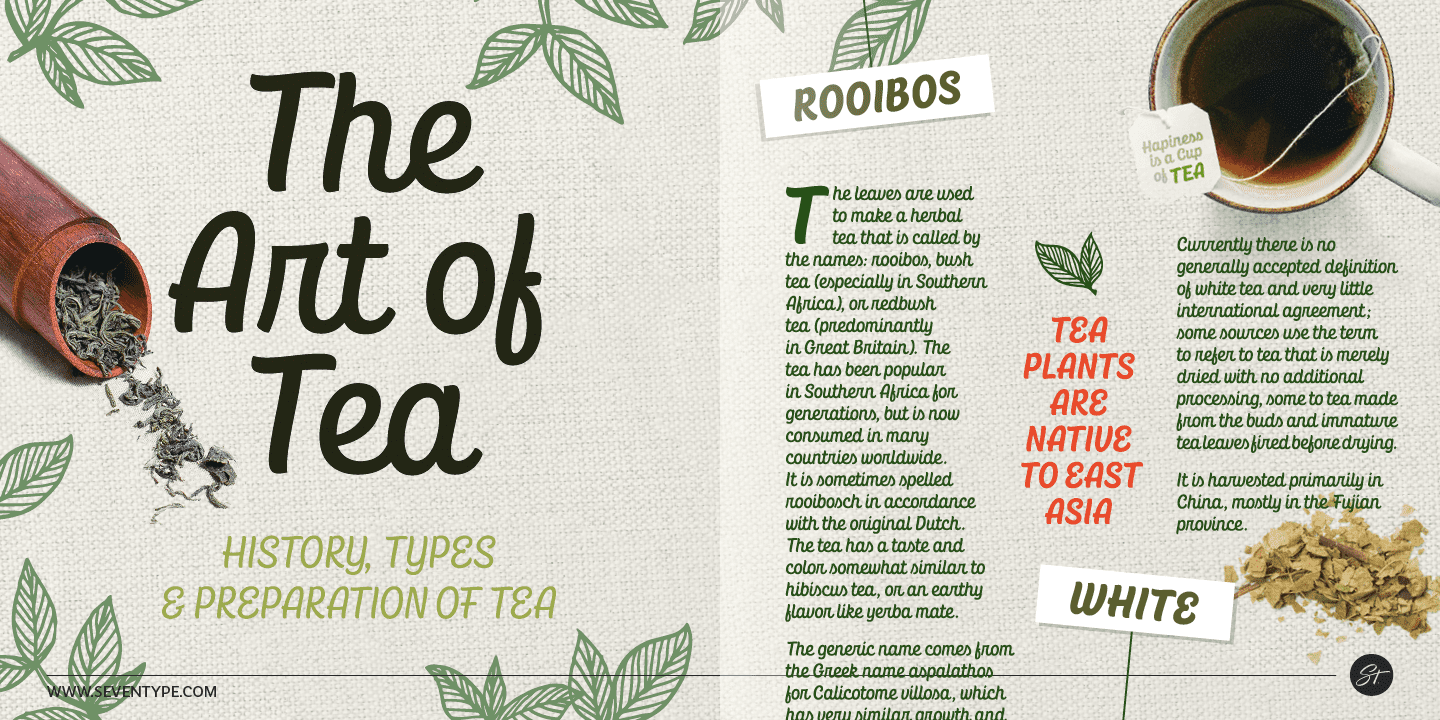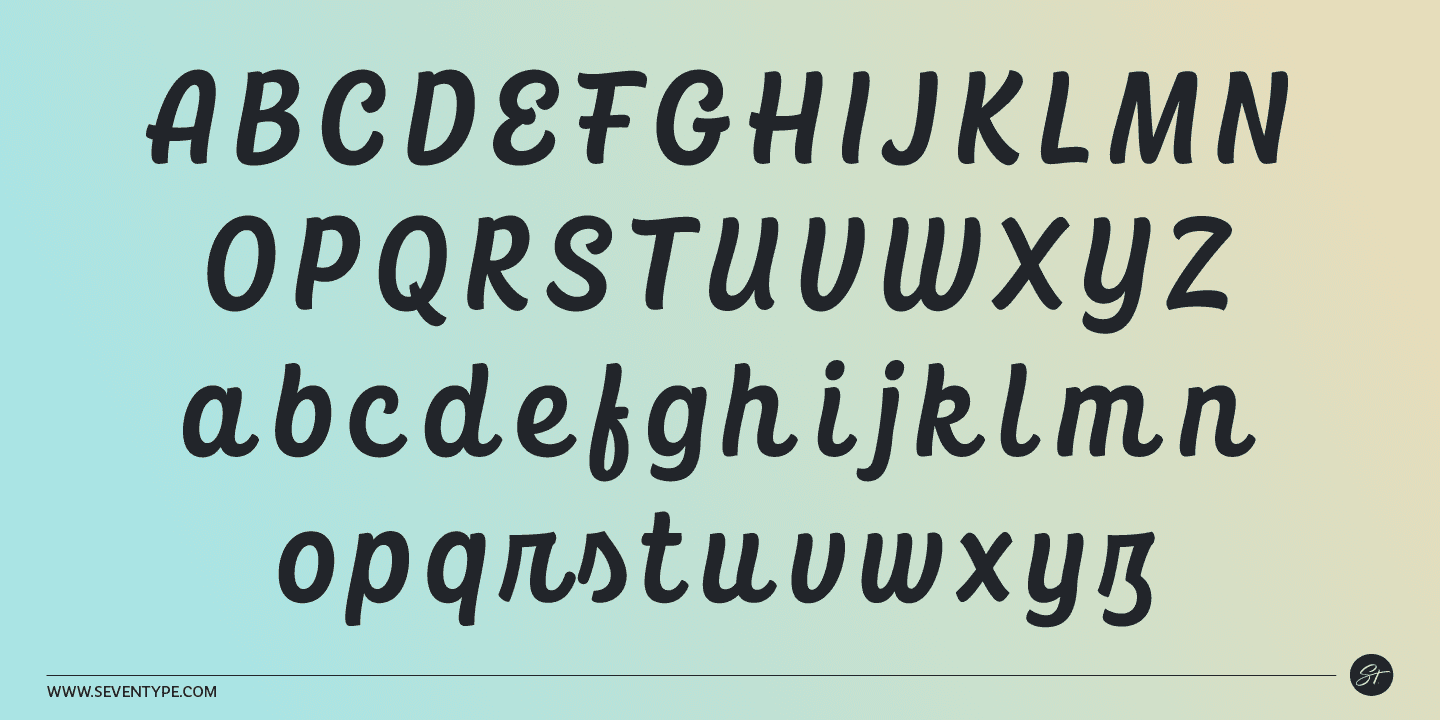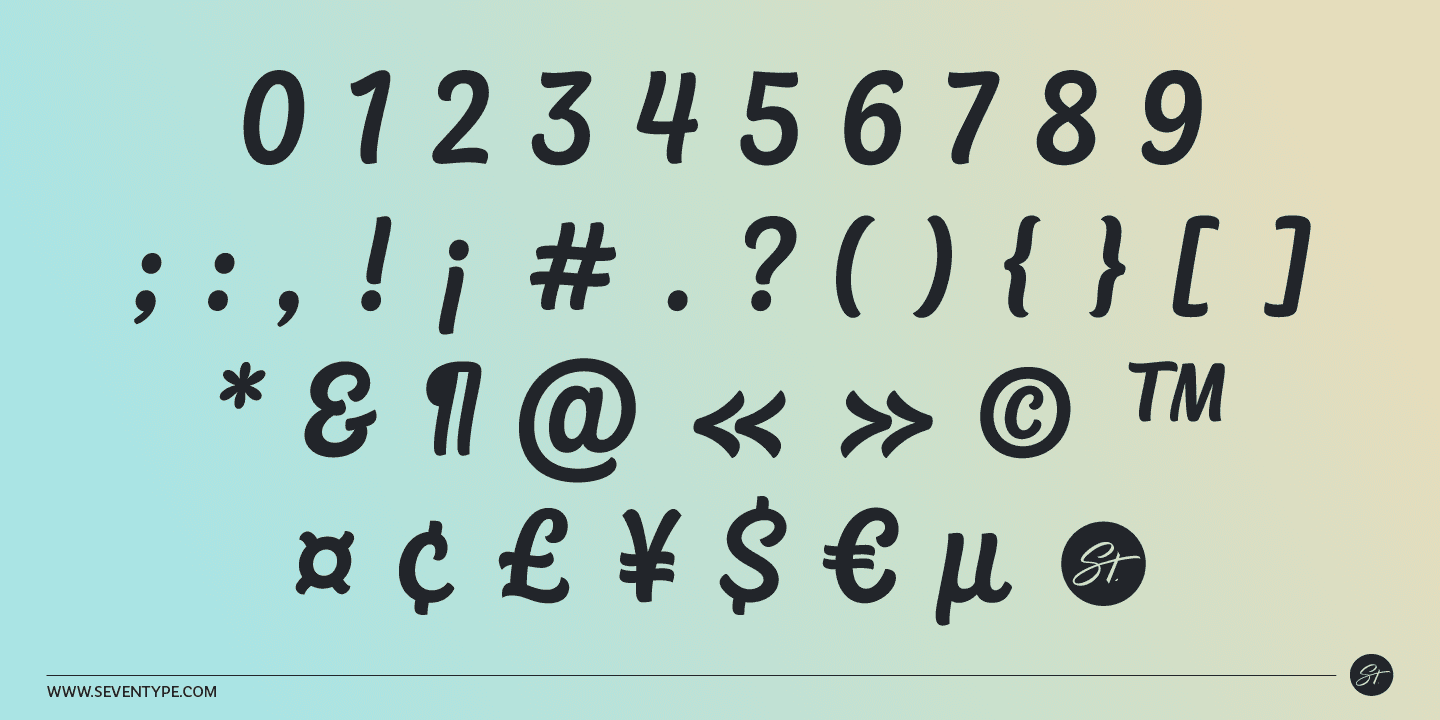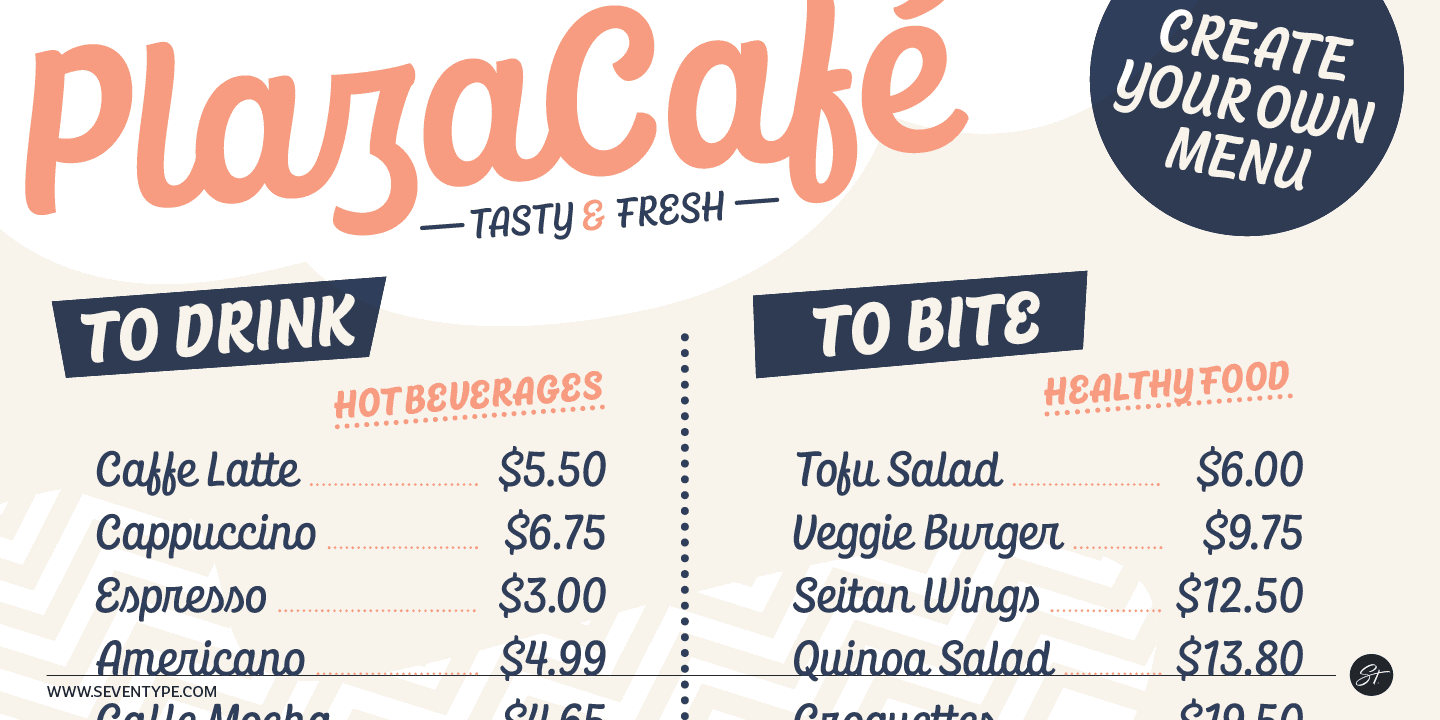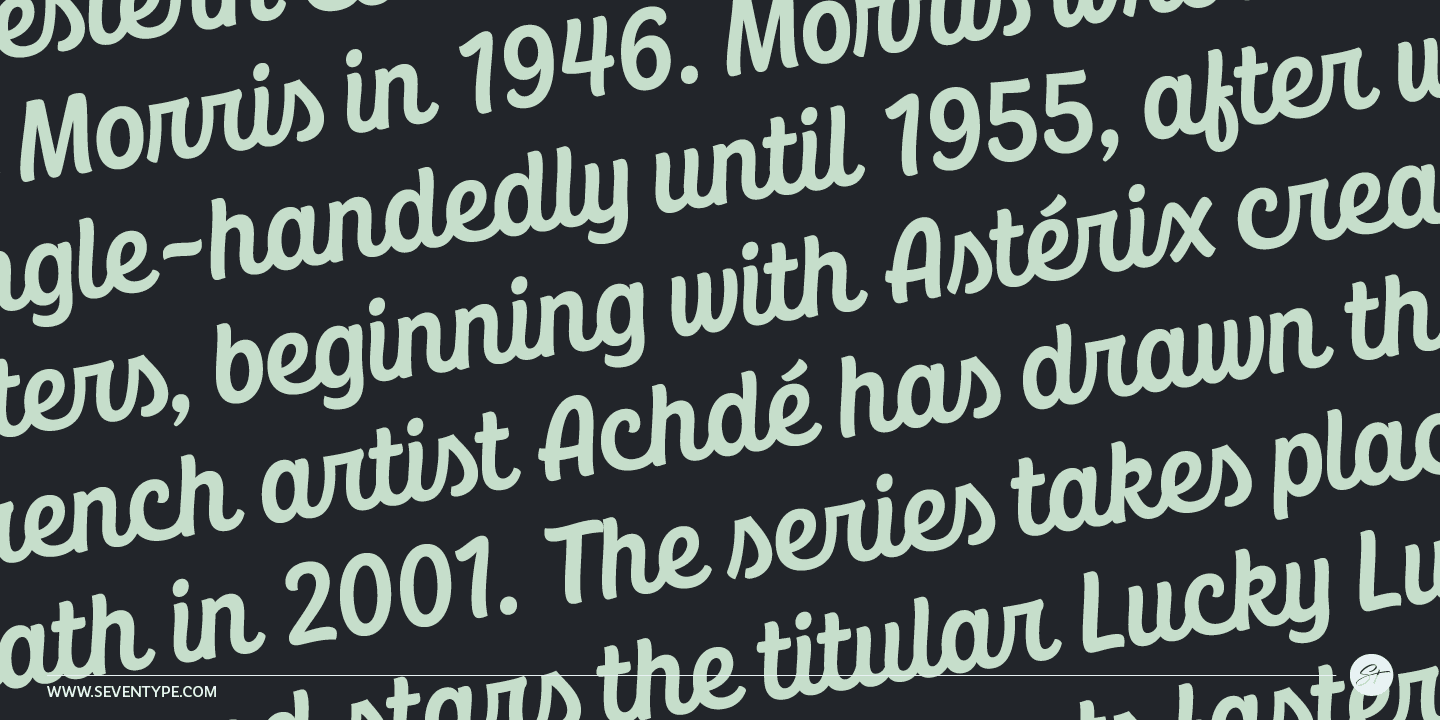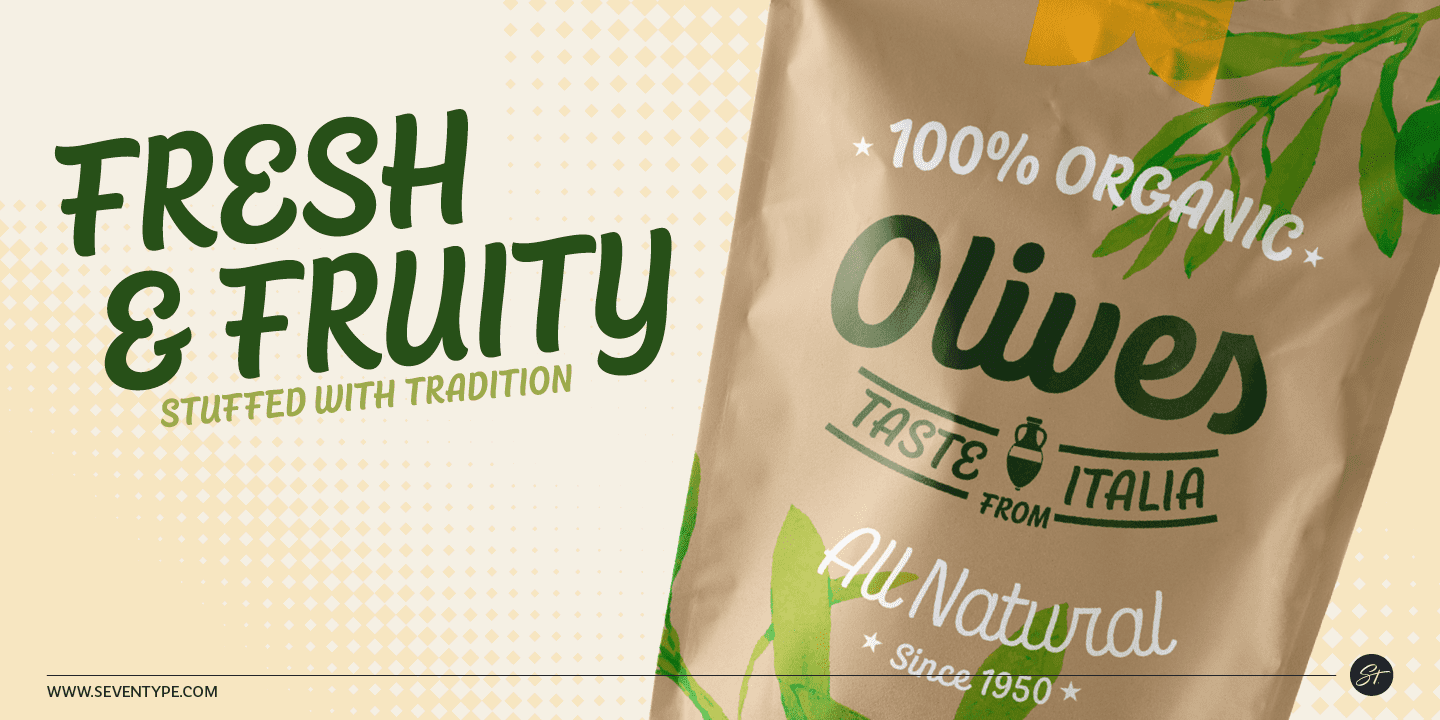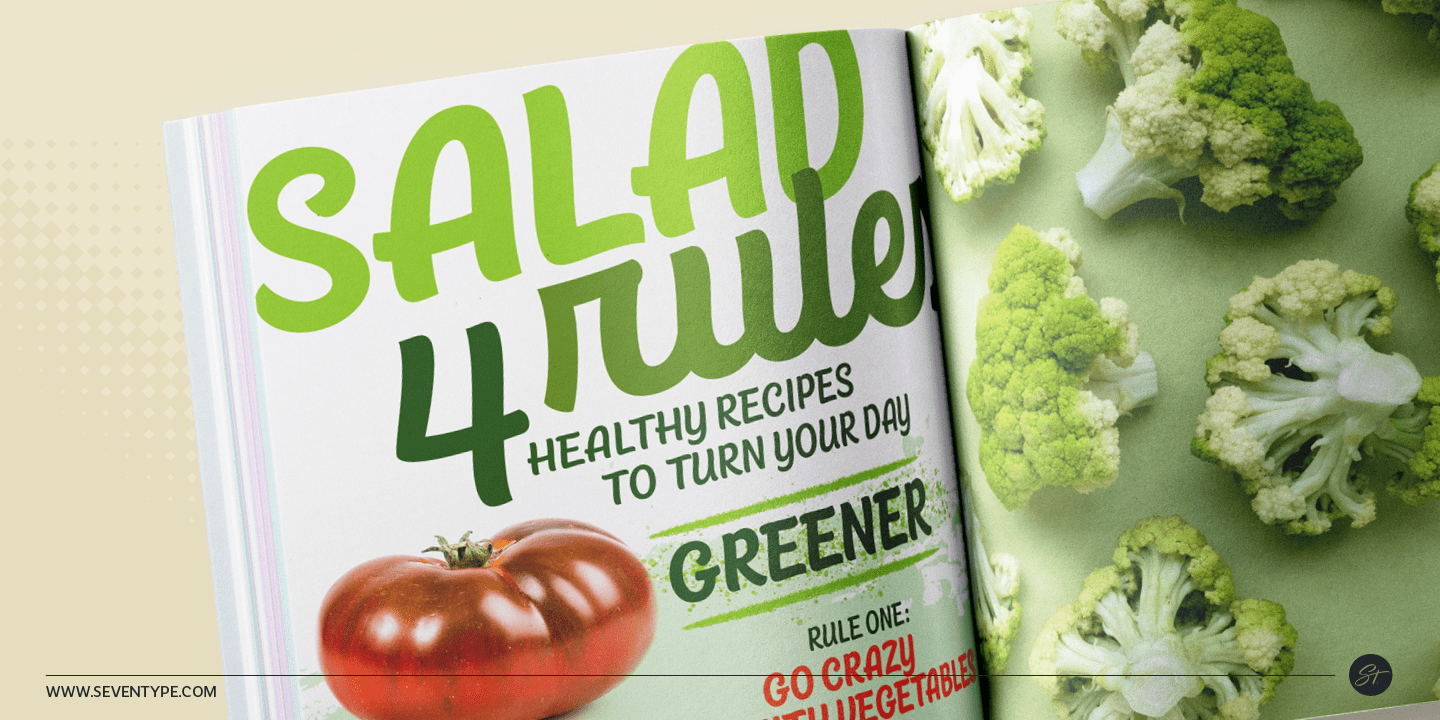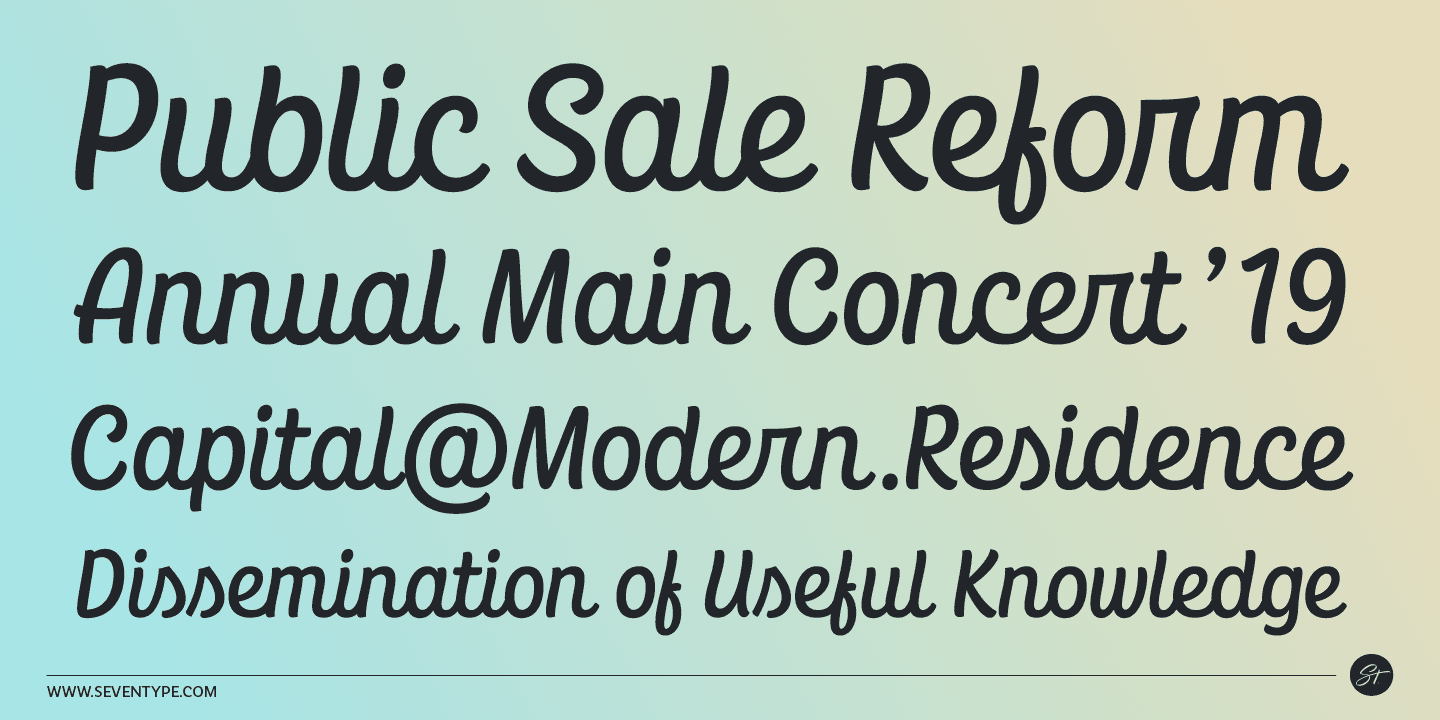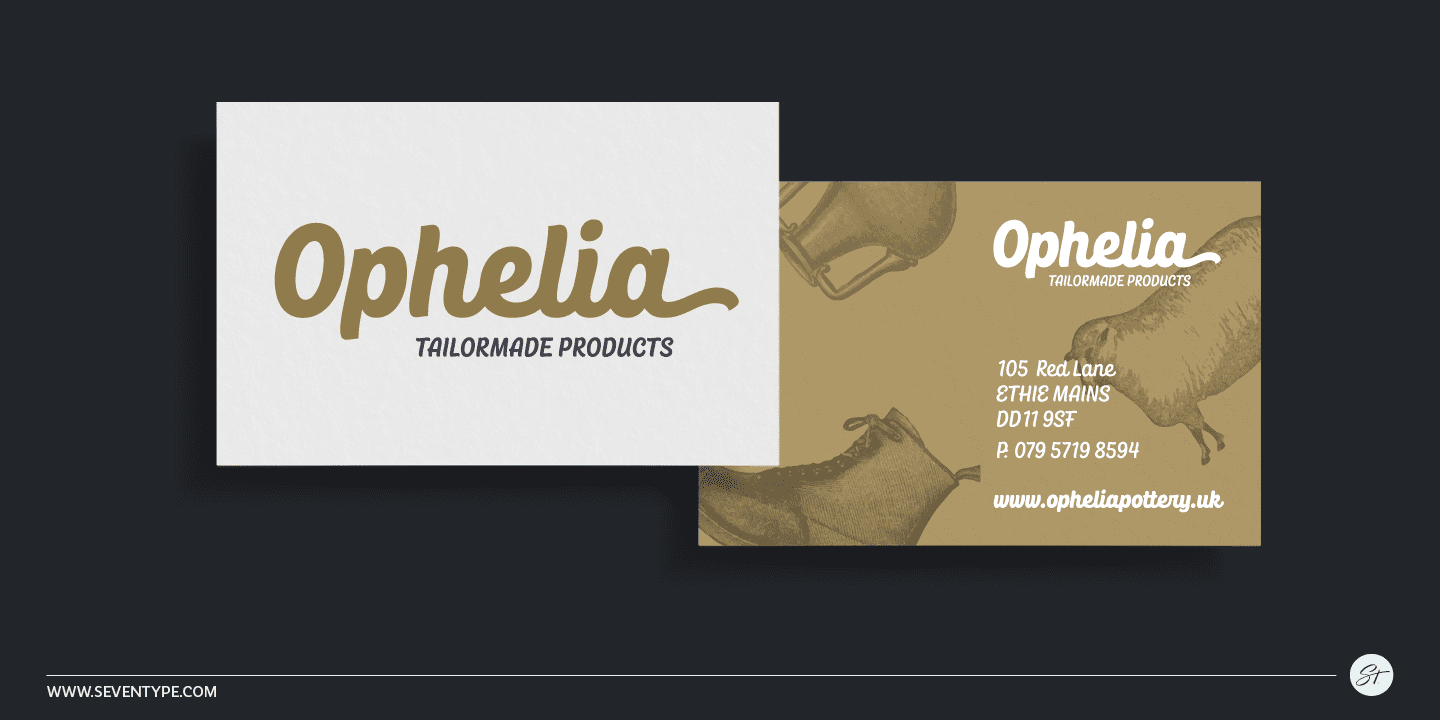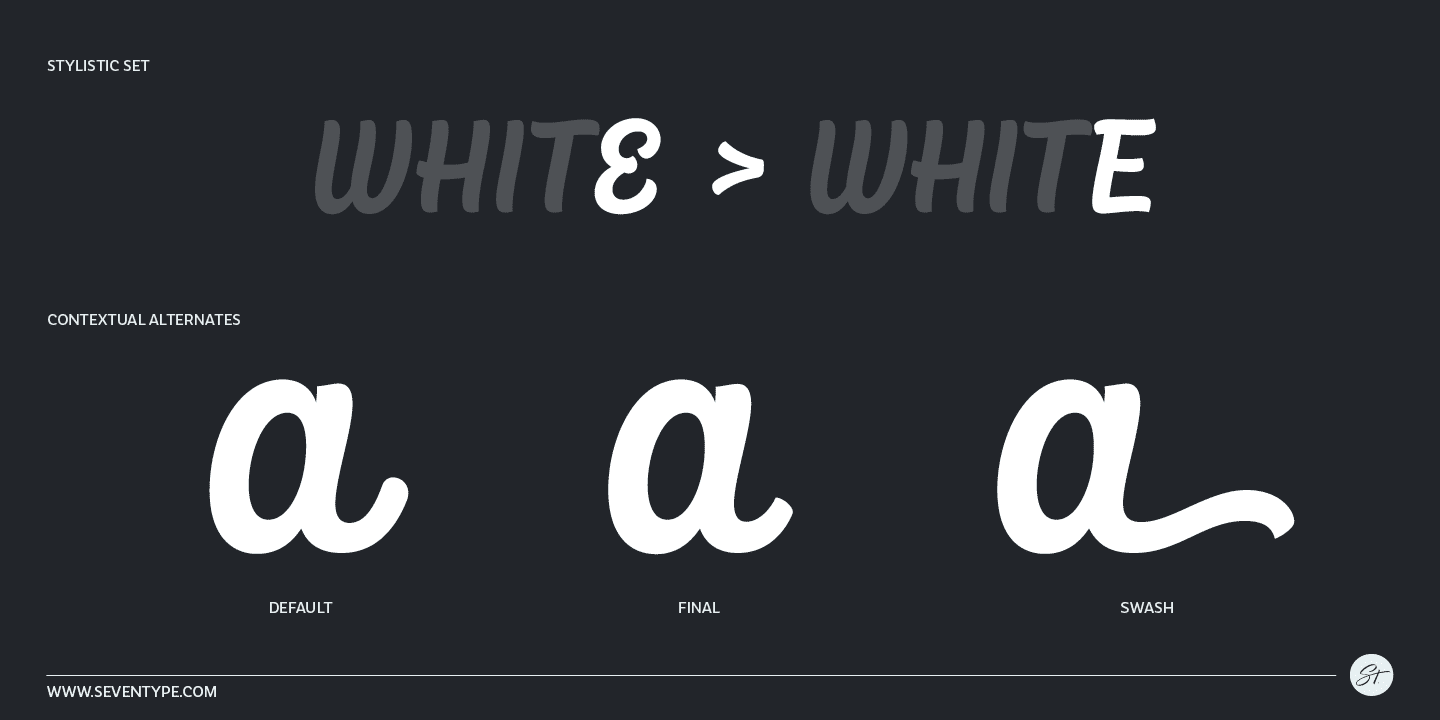
Cool Kids Family (4 fonts)
From Seventype Design
After designing the bold script we decided to include a light, regular and medium weight to offer you more options for your designs.
It comes with initial and final alternates, that show up automatically, to make it feel more natural and similar to handwriting.
Every character was carefully drawn and connections are real smooth.
This casual font-family speaks most Latin languages, both in their basic and alternate forms.
CoolKids is great for creating logos, packaging, posters and much more.